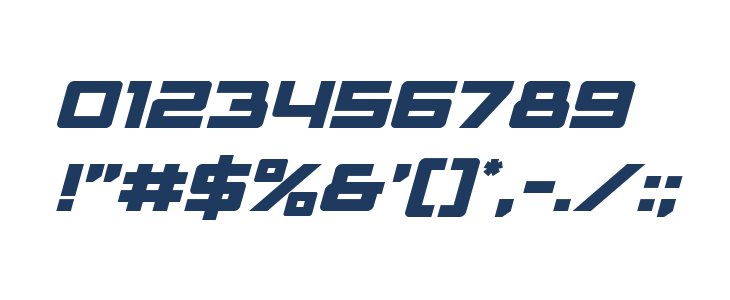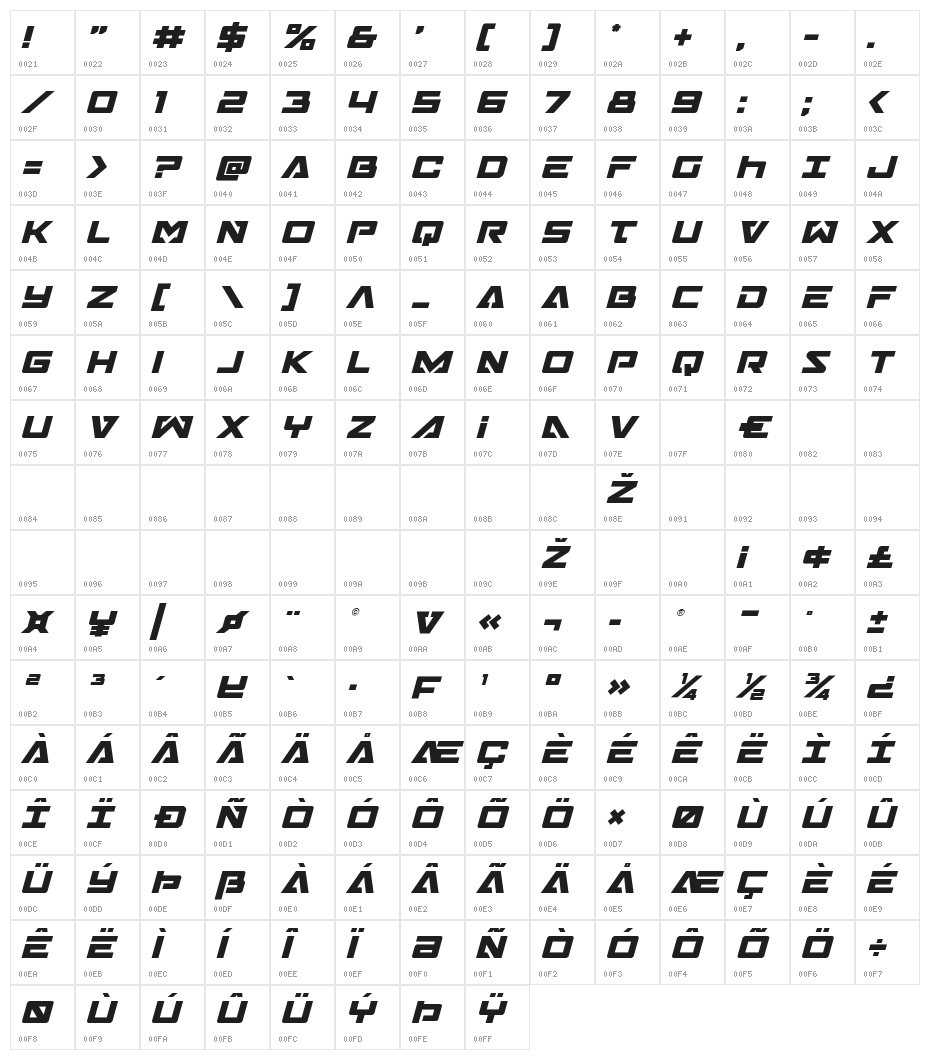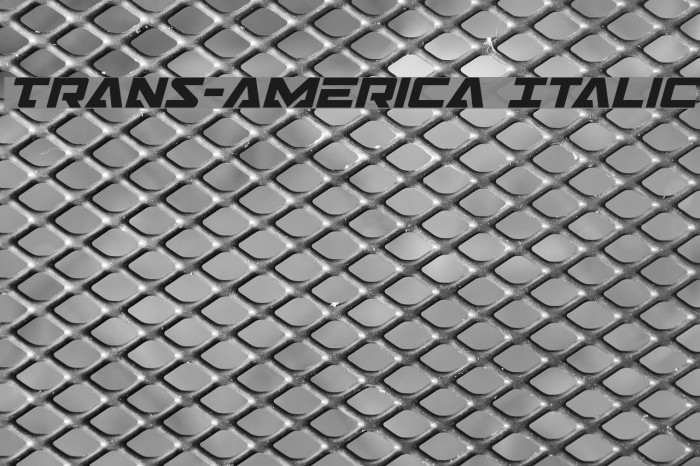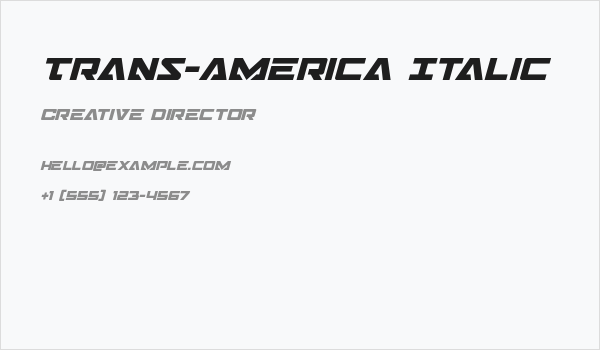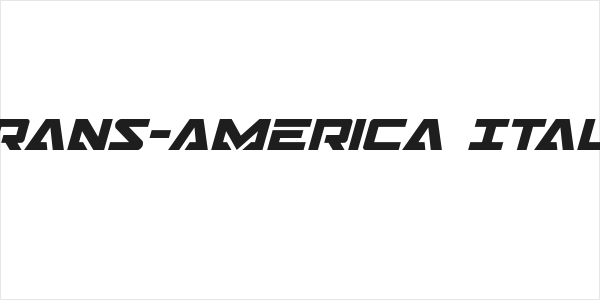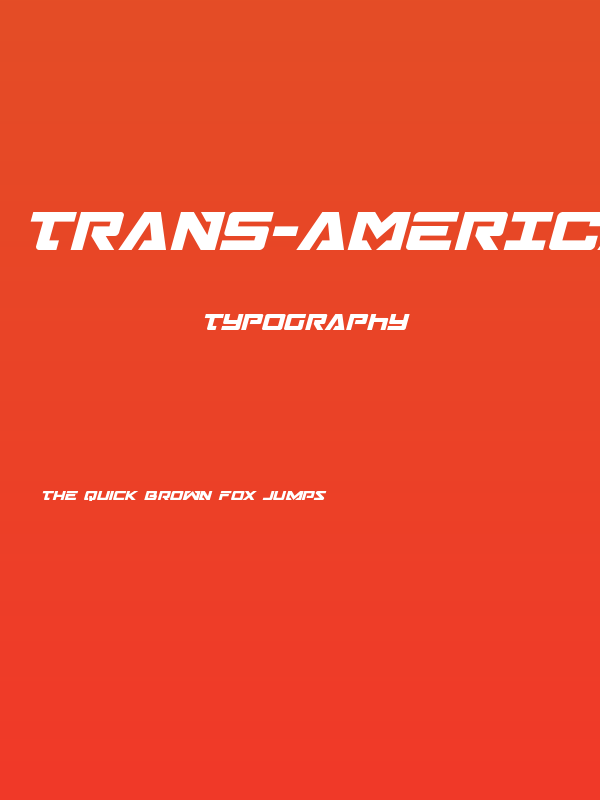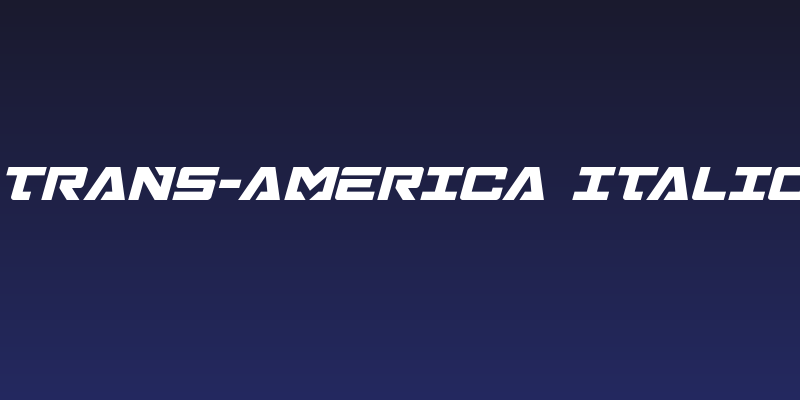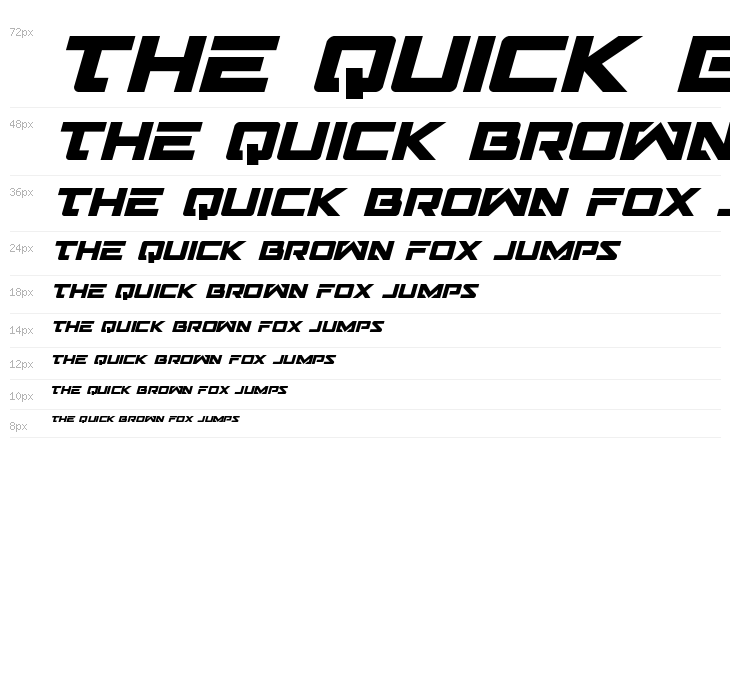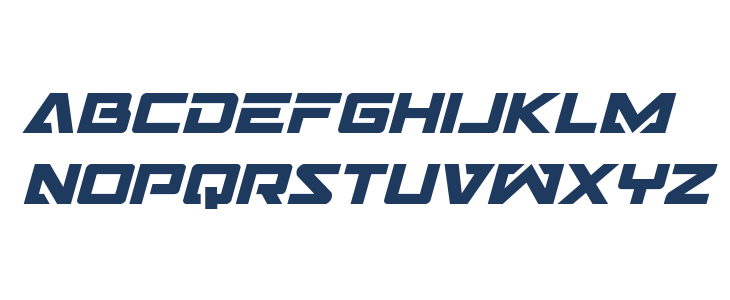
Trans-America Italic Font
Trans-America Italic Description
This font features a bold and dynamic italic style, characterized by its sharp, angular lines and futuristic appearance. The letters are slanted forward, giving a sense of motion and speed. Each character is designed with a consistent stroke weight, contributing to a cohesive and uniform look. The font's geometric shapes and clean edges make it ideal for modern and tech-oriented designs. It maintains a strong presence with its boldness, while the italic slant adds a touch of elegance and sophistication.